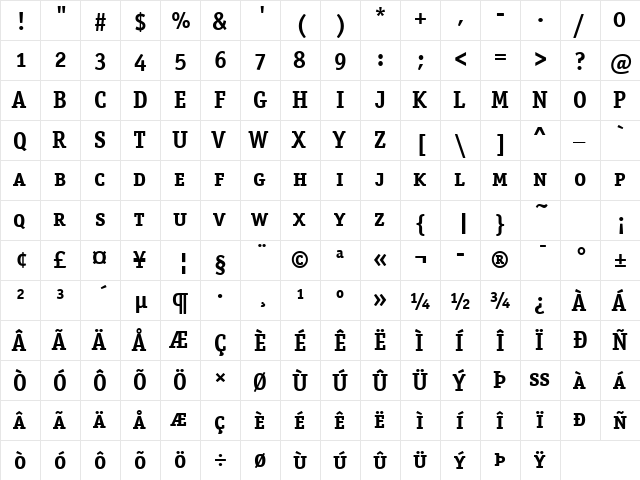
OfficinaSerSCITCTT Bold
| Foundry | International Typeface Corporation |
| Designer | Erik Spiekermann / Ole Schaefer |
Design Context for OfficinaSerSCITCTT Typeface
OfficinaSerSCITCTT offers clean, dependable letterforms without strong stylistic allegiance, making it a practical choice for designers who need flexibility. The heavy weight commands attention and anchors typographic hierarchies.